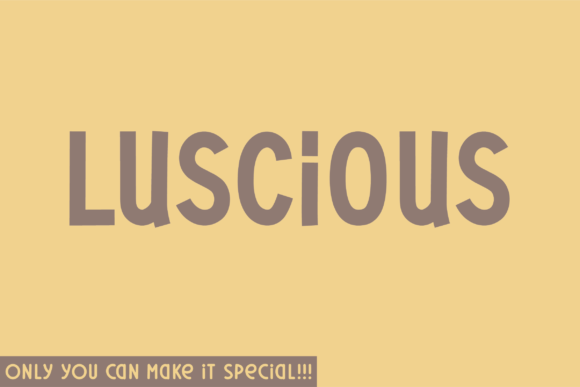
Journey into the world of Luscious Font, where elegance and creativity dance together to produce an exquisite handwritten font like no other. Hanna Bie, the mastermind behind this masterpiece, has crafted each character with meticulous precision, preserving the natural flow and beauty of handwriting.
With Luscious Font, your digital notes will transcend the mundane and transform into works of art. Imagine your words adorned with whimsical curves, delicate loops, and charming imperfections that mirror the grace of penmanship. Quotes will come alive, capturing the essence of the speaker's emotions, while notes will become a visual symphony, sparking inspiration and enhancing comprehension.
Unleash your creativity and let Luscious Font elevate your designs. Create tees that speak volumes, expressing your unique style and personality. Transform everyday objects into captivating works of art, adding a touch of handwritten charm to your products. The possibilities are endless, bound only by the limits of your imagination.